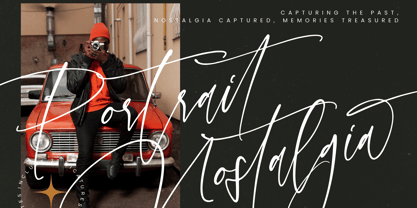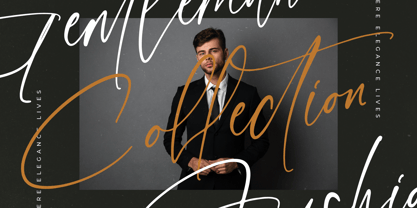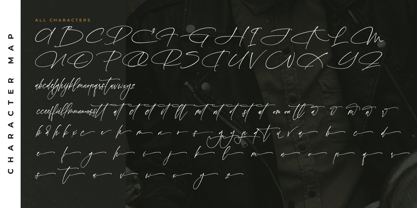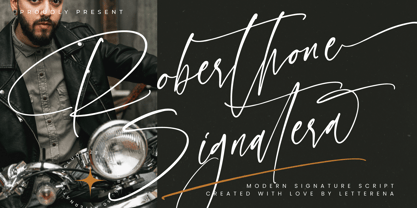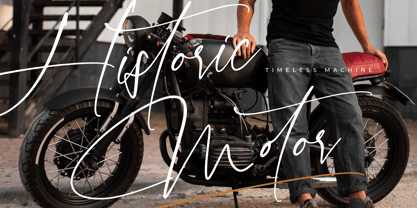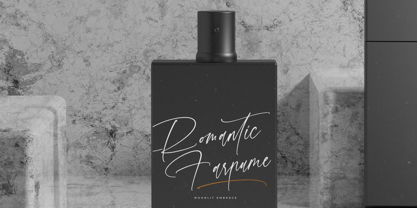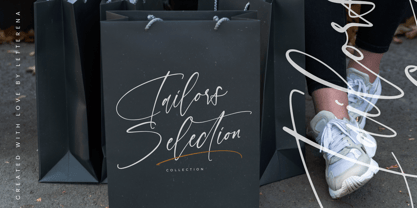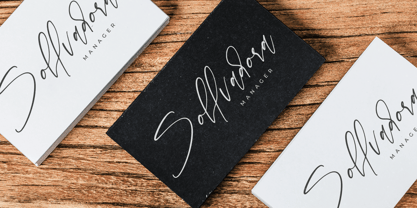
Roberthone Signatera
The Roberthone Signatera Font Family was designed by Heru Utama Putra and published by Letterena Studios. Roberthone Signatera contains 2 styles and family package options. More about this family
Roberthone Signatera – Modern Signature Script , from Letterena, is a Luxury Script font, suitable for any projects such as: logos, branding projects, homeware designs, product packaging, mugs, quotes, posters, shopping bags, t-shirts, book covers, name card, invitation cards, greeting cards, label, photography, watermark, special events, and all your other luxury and beautiful projects that need a Luxury Script taste.